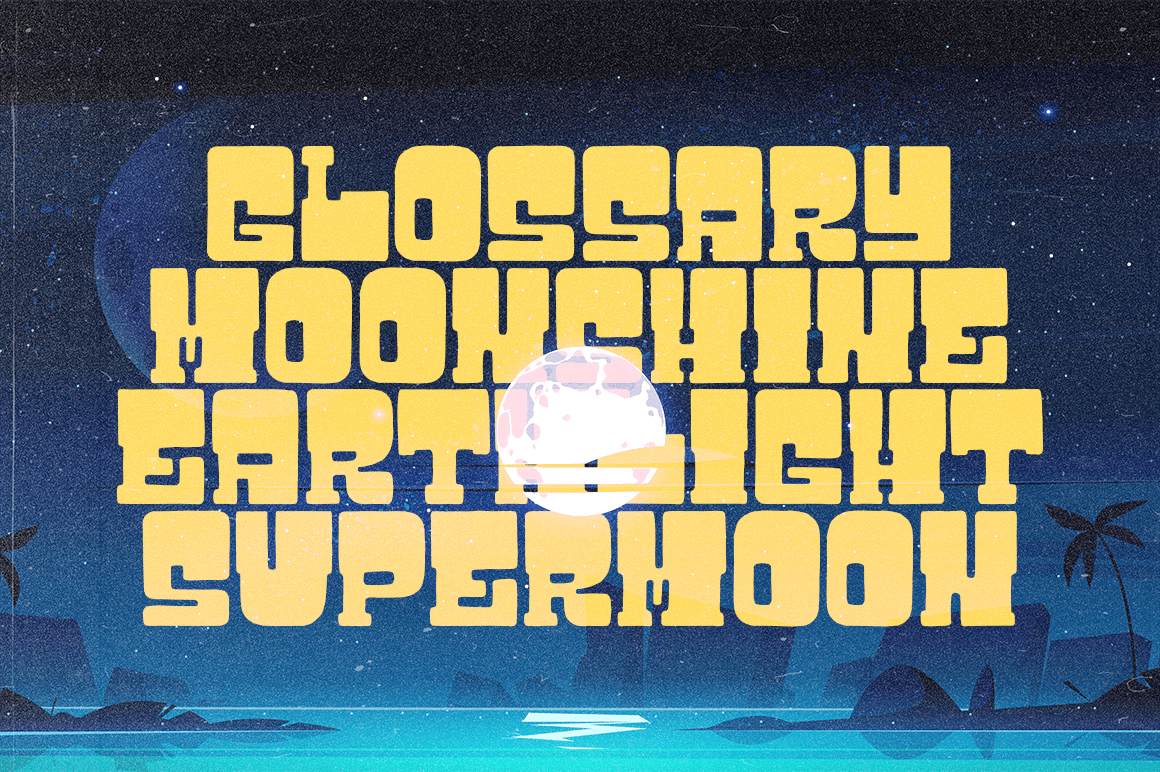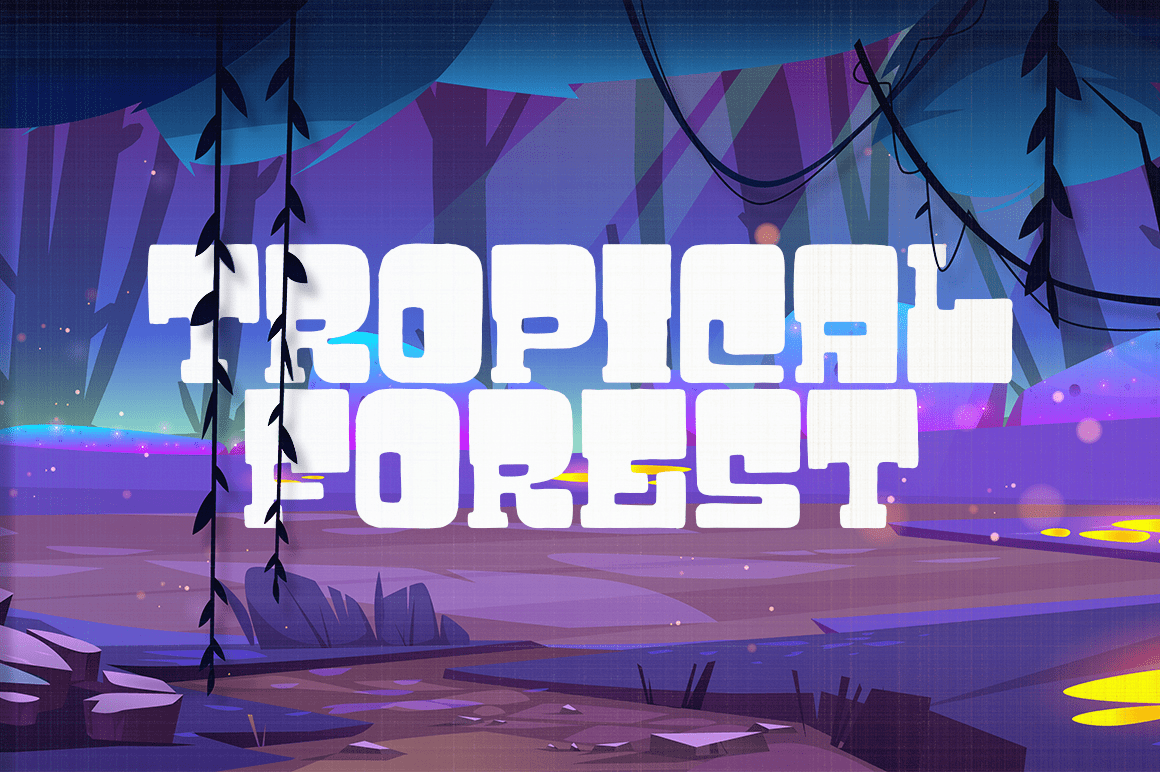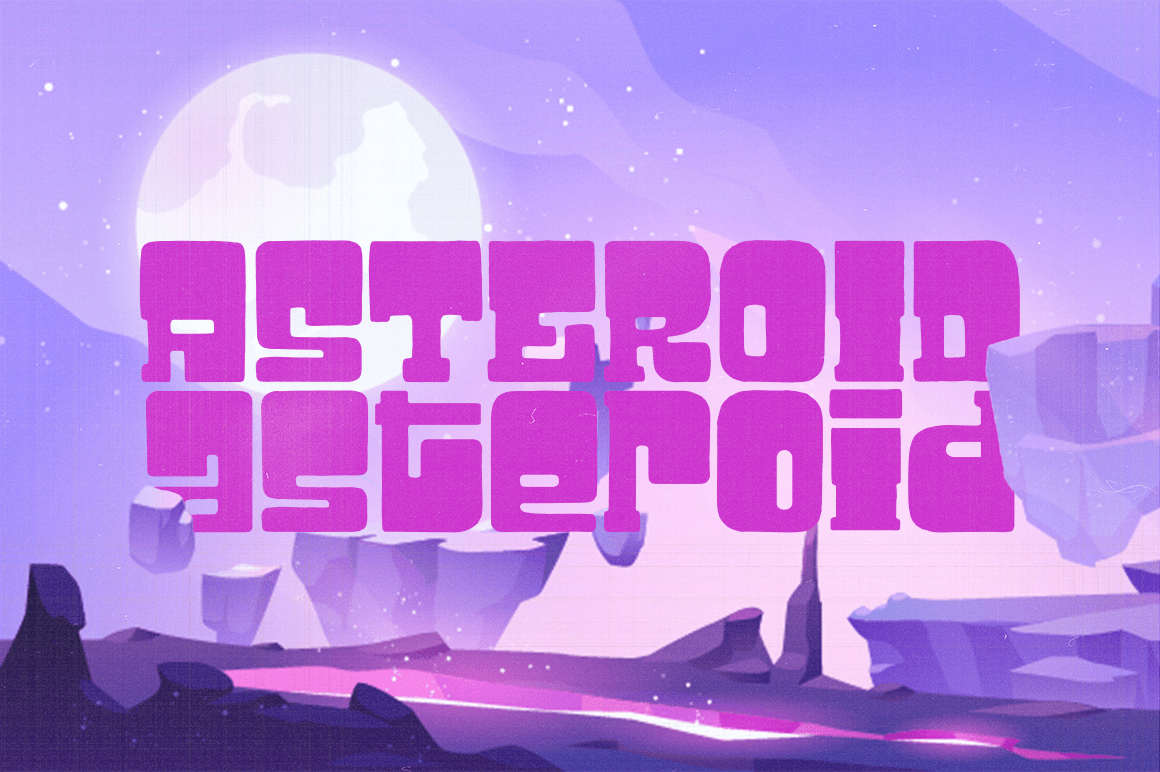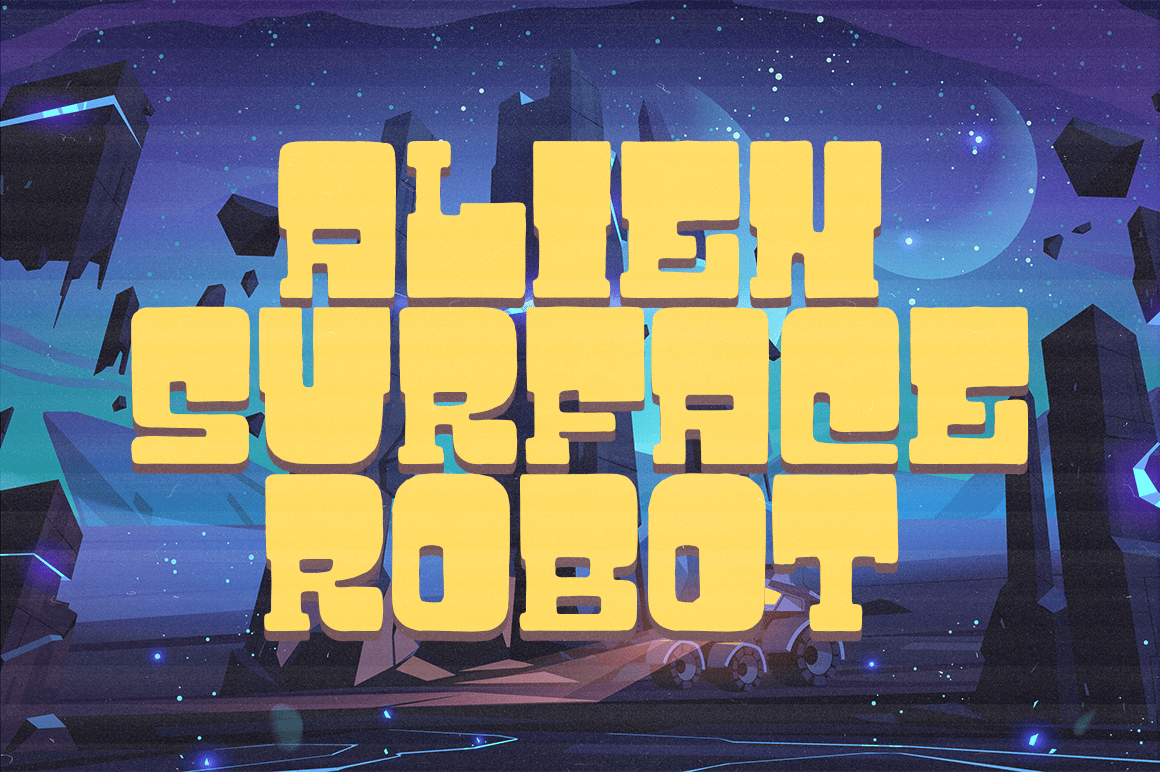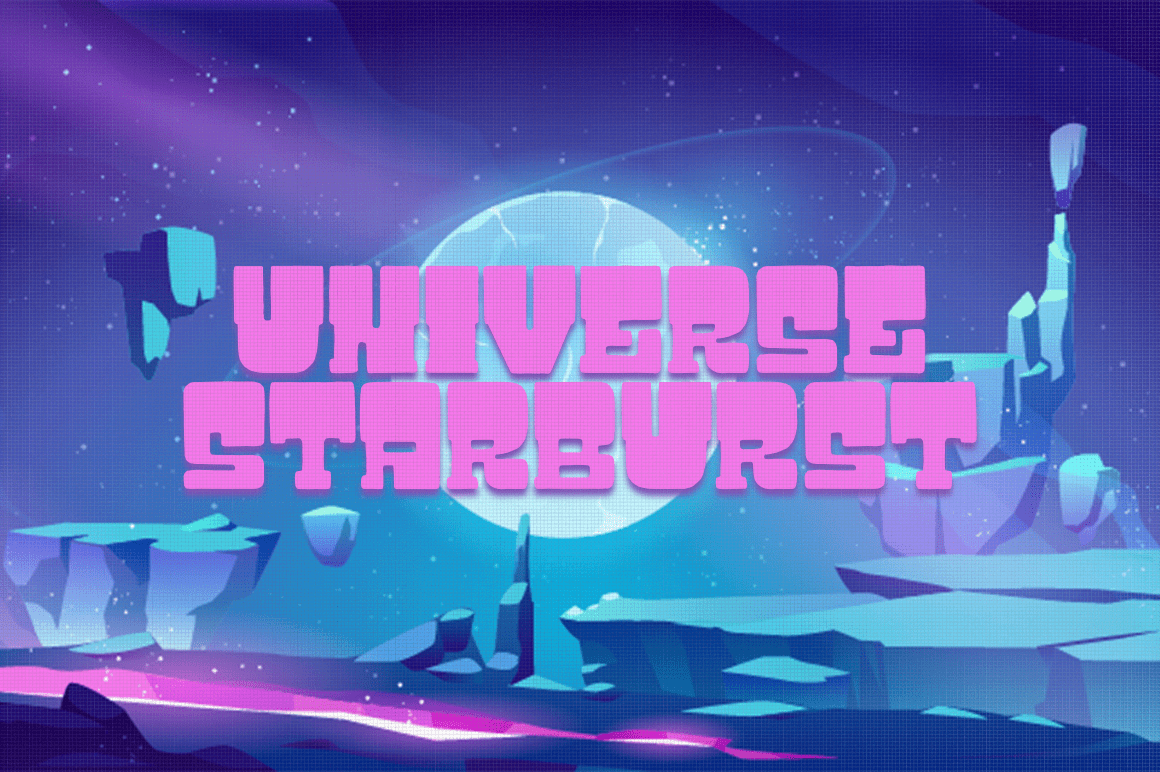
About Rocket Space
Rocket Space is unique and fun display font, It embodies playfulness and authenticity and is the perfect choice for a label, book cover, children\’s book, comic, poster, banner, packaging, merchandise, logotype, and much more.